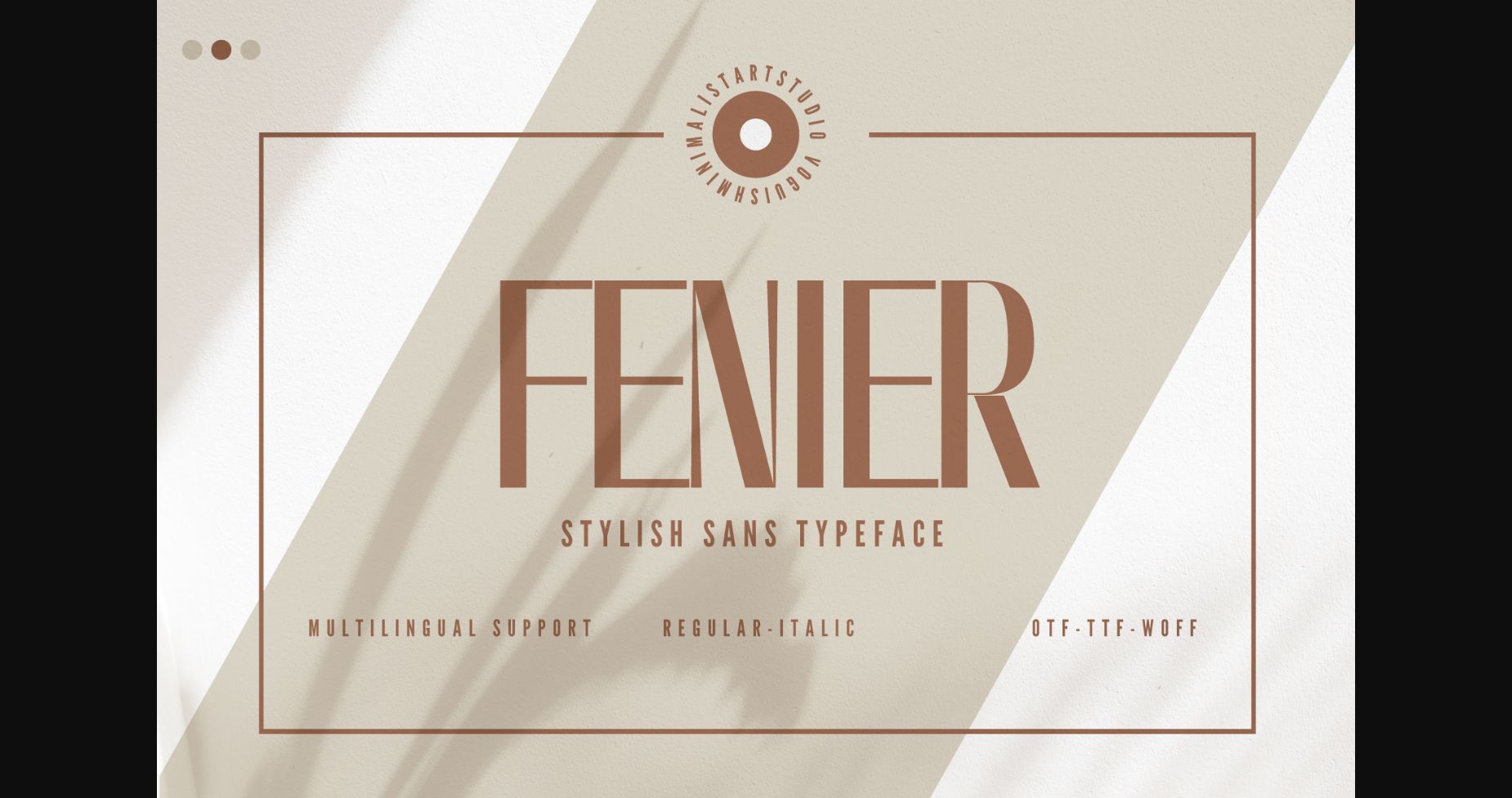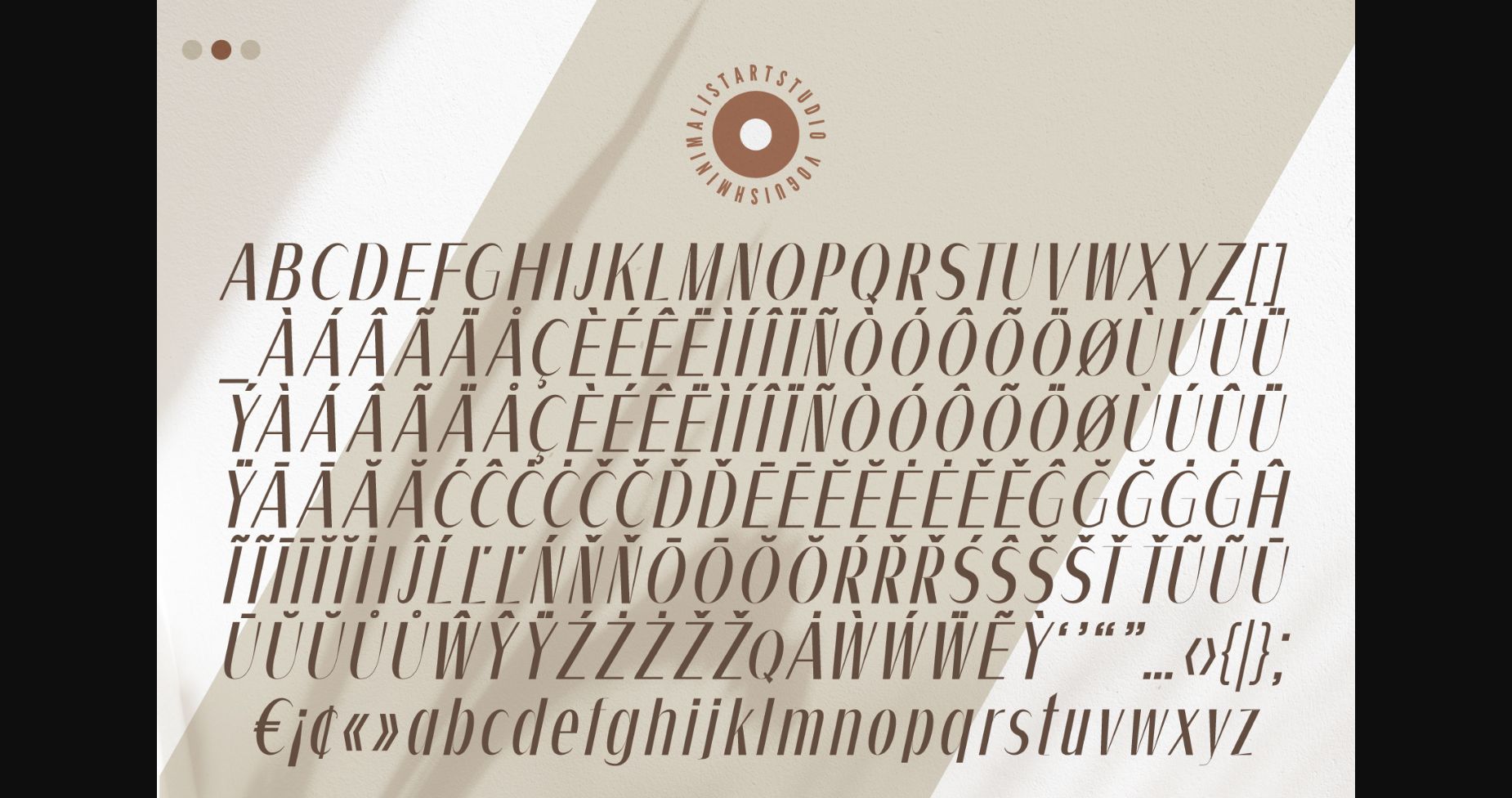
About Fenier Font
Fenier is a minimalist, elegant, compressed, and eye-catching sans serif typeface. Its tall and bold glyphs construction renders it a valid choice when you are working on a project that requires grabbing attention. Add it to your minimalist creative ideas and notice how many nice results can be easily obtained.